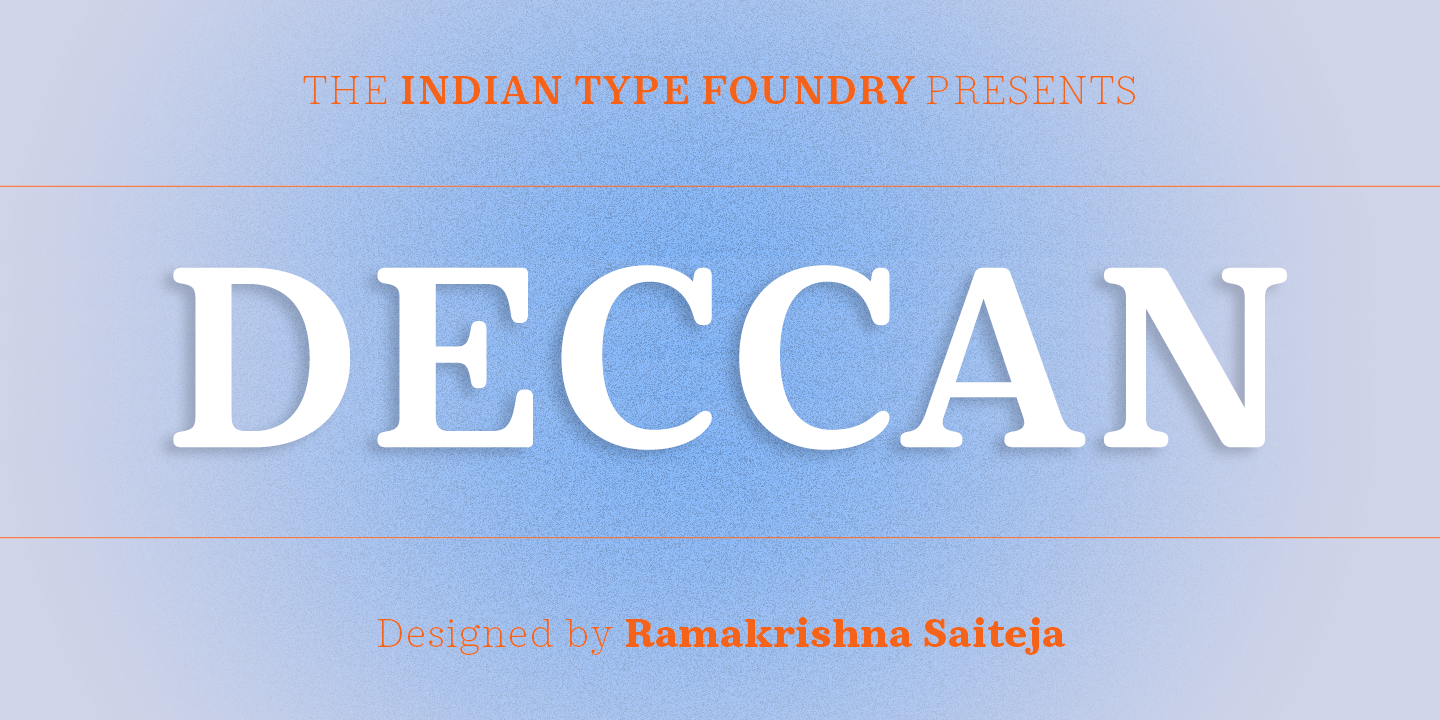
Deccan Font is ideal for Indian restaurant branding, South Asian cultural events, traditional textile packaging, heritage spice labels, cultural festival posters, authentic curry house menus, Bollywood movie promotions, and Indian classical music presentations.
This font is exciting because it captures the rich cultural heritage and artistic traditions of the Indian subcontinent with elegant letterforms that honor centuries of South Asian craftsmanship and cultural sophistication. The Deccan Font embodies the vibrant spirit of Indian culture and ancient wisdom, transforming ordinary text into beautiful expressions that celebrate the diversity, artistry, and timeless traditions of one of the world's most culturally rich regions.
The Deccan Font family includes culturally inspired variations such as Regular, Bold, Light, Ornate, Italic, Heritage, Condensed, and Extended versions, providing South Asian designers with comprehensive tools to create authentic typography that honors Indian cultural traditions and celebrates the artistic heritage of the subcontinent across all cultural applications.
Celebrate Indian heritage with Deccan Font Free Download that brings authentic South Asian elegance to every cultural design project. This culturally rich typeface combines traditional Indian aesthetics with contemporary functionality, making it perfect for Indian businesses, cultural organizations, and brands celebrating South Asian heritage and artistic traditions. The font's elegant character design ensures your message conveys cultural respect and authenticity while maintaining excellent readability across all applications. Whether you're developing Indian restaurant branding, creating cultural event materials, or designing products that honor South Asian traditions, Deccan Font delivers the authentic typography that resonates with audiences who appreciate Indian culture and artistic excellence. Its versatile design works beautifully across digital and print media while preserving the cultural richness that makes Indian communications feel genuinely respectful and worthy of the profound heritage that defines South Asian civilization and the artistic traditions that have enriched human culture for millennia.